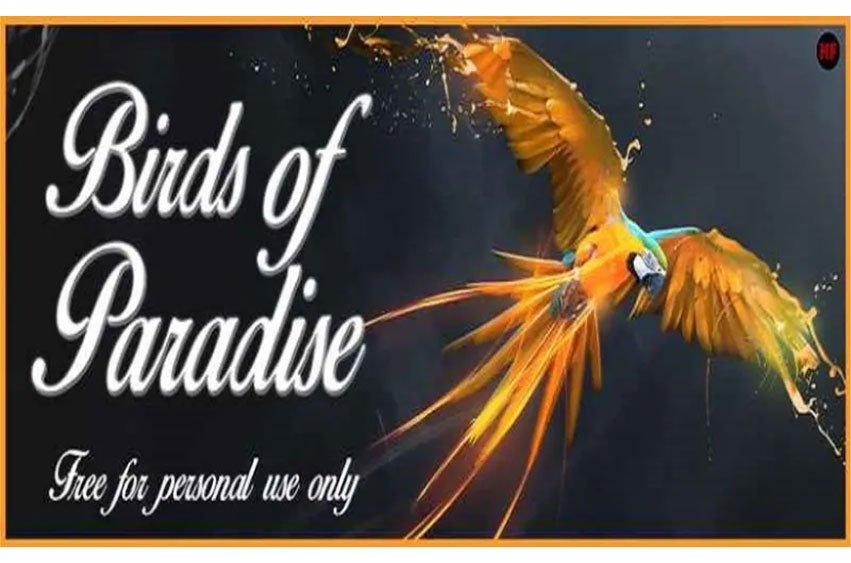
Birds of Paradise Font is an elegant Calligraphy Font by Herofonts, which is free for download with the clause that it can only be used for personal usage.
The free version consist all the lower-case characters and additional unique characters to spice them up.